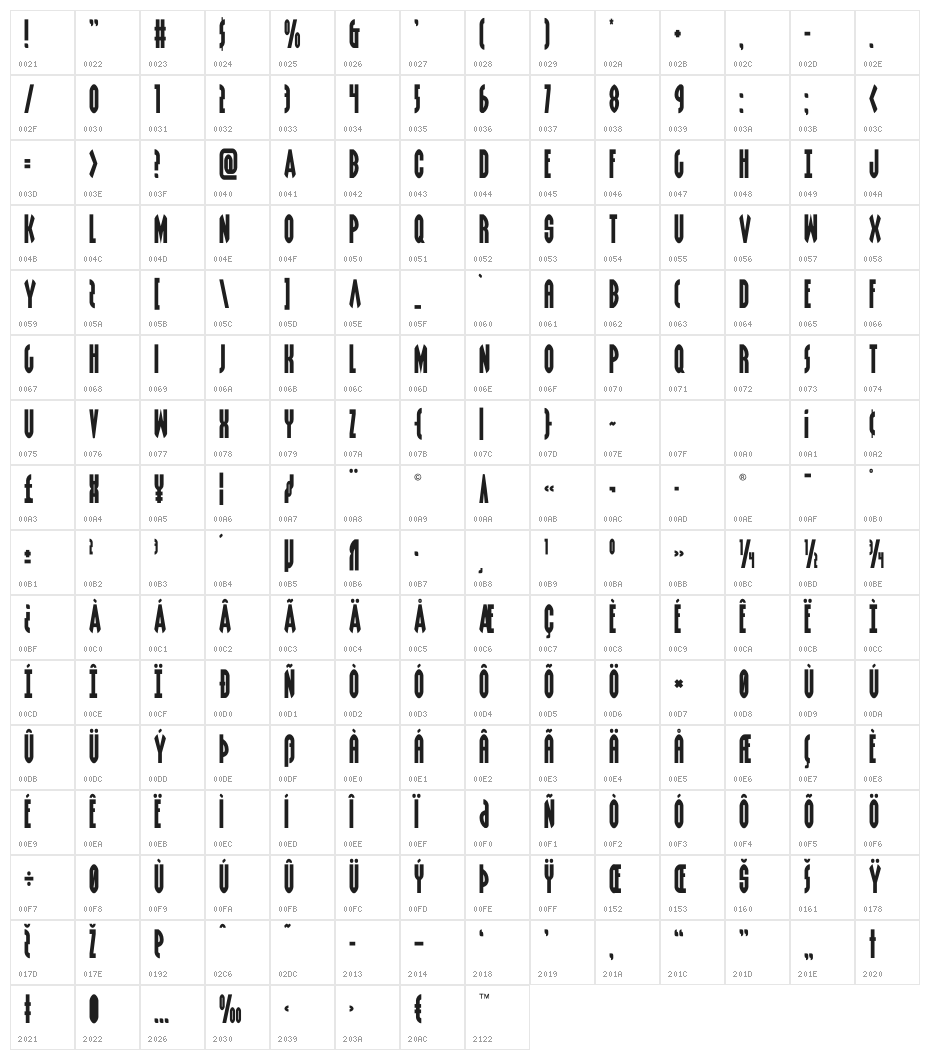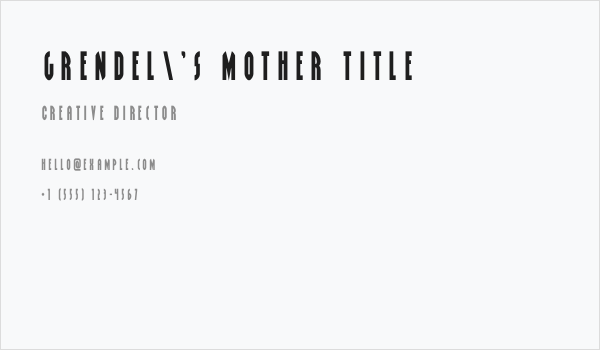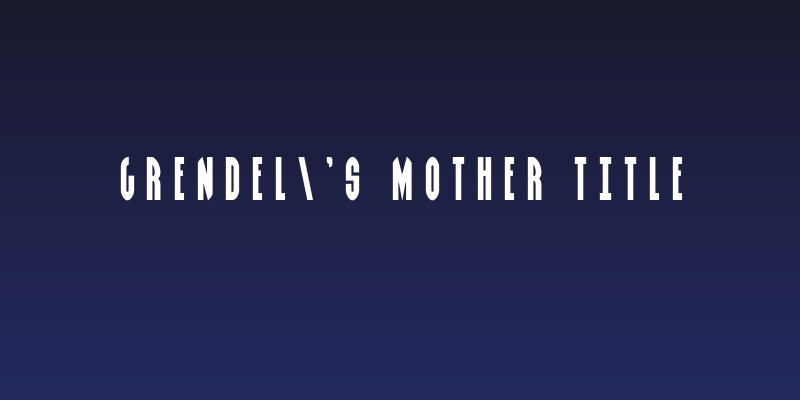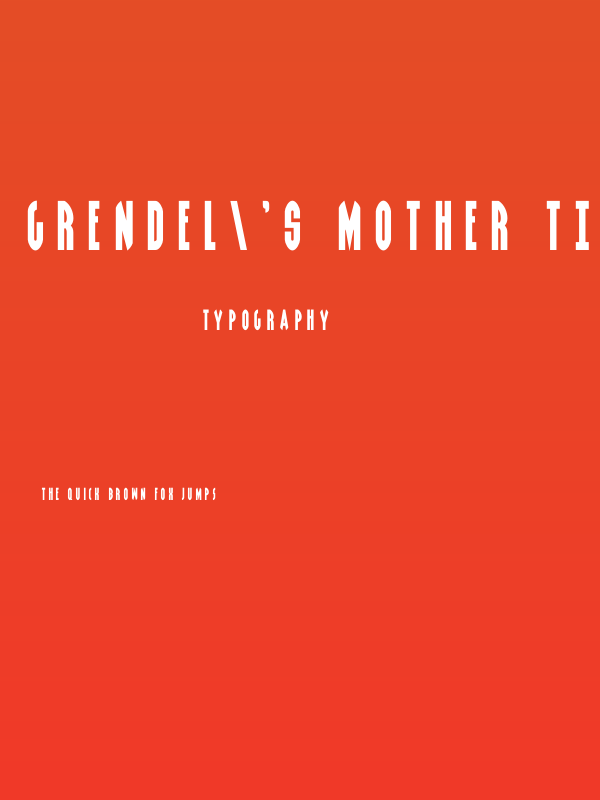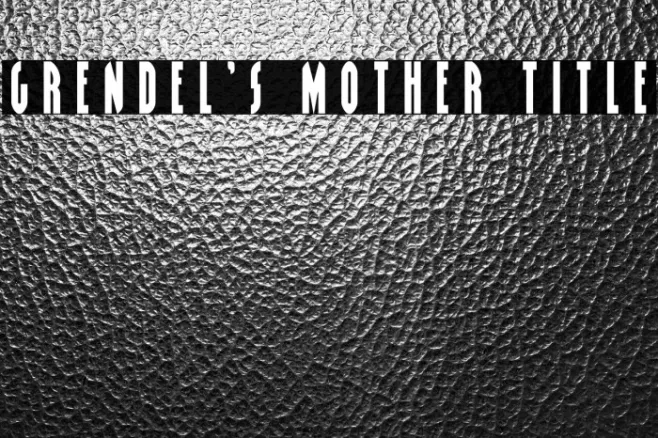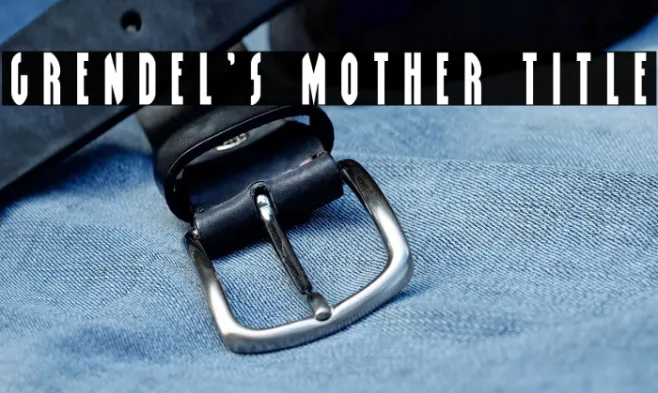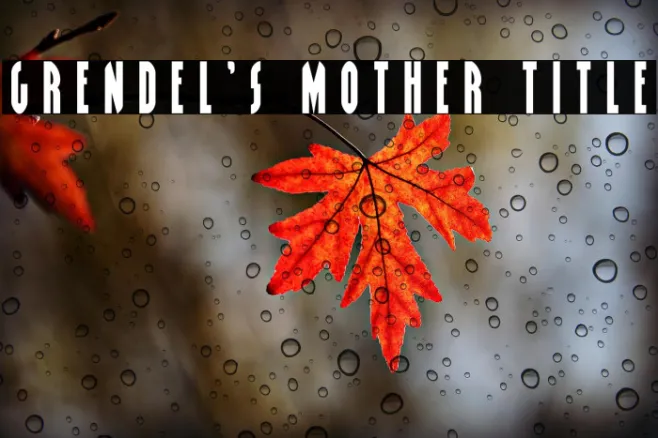
Grendel's Mother Title Font
Grendel's Mother Title Description
This font features a bold and striking design with a strong presence. The characters are tall and narrow, with sharp angles and a distinct geometric style. The uppercase letters have a uniform height, while the lowercase letters maintain a consistent style, adding a sense of cohesion. The numbers are similarly bold, ensuring readability and impact. Special characters are designed to match the overall aesthetic, making this font suitable for attention-grabbing headlines and titles. The high contrast between thick and thin strokes adds to its dramatic appearance.
| Proposed Projects | Ideal for posters, logos, branding, and any design requiring a strong visual impact. |